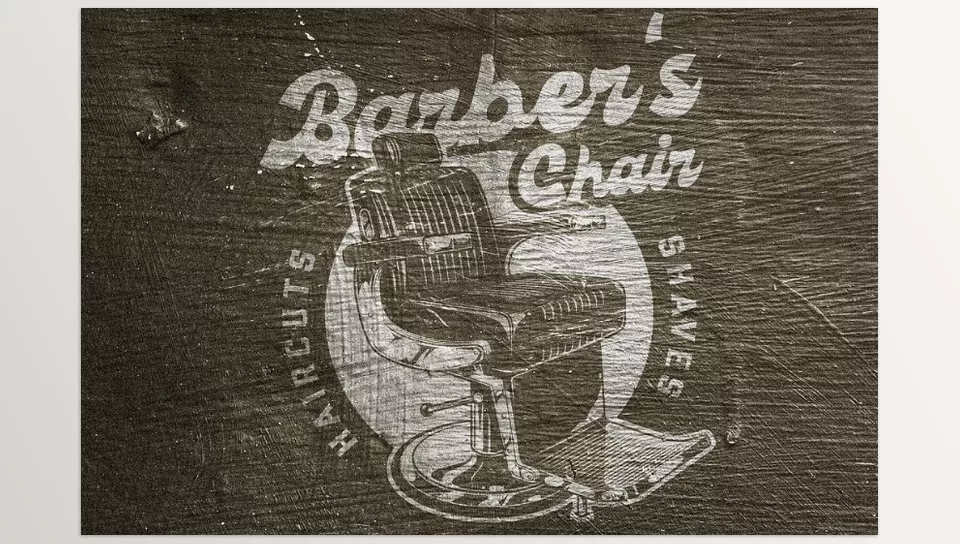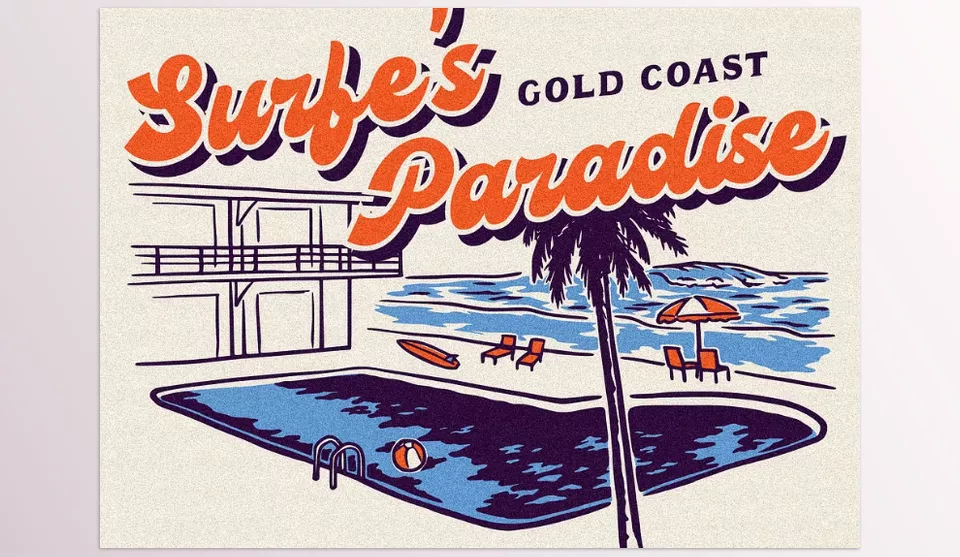
Kapitale Groovy retro script, by Invasi Studio, is a stunning masterpiece of retro-inspired script font with English text with a distinct rounded and sharp edge mix. Perfect for using to get the point across, vibrant posters, logos, and impactful headlines look great with this. Offers versatile alternates and score language support making posters stand out with bold writing.
• Retro-modern fusion: Captivating mixes of rounded forms and sleek sharp diagonals.
• Versatile Design: Ideal for branding projects aimed at cutting-edge nostalgic album covers.
• Stylish Alternates: Offers a fresh look and increased dimension through added glyph options.
• Multilingual Support: Great for international use with support of more than 60 Latin-based languages.
• Bold Typography: Crafted to deliver powerful statement headlines and exceptional visuals.
Kapitale Groovy retro script Overview
Image 1: It is packed with stylish alternates and robust multilingual support, making it ideal for creating attention-grabbing headlines, dynamic posters, sleek logos, and everything else in between.
Kapitale Groovy retro script - It is packed with stylish alternates and robust multilingual support, making it ideal for creating attention-grabbing headlines, dynamic posters, sleek logos, and everything else in between.
Image 2: Brings a perfect balance of vintage flair and cutting-edge design, making every project a showcase of creativity and style.
Kapitale Groovy retro script - brings a perfect balance of vintage flair and cutting-edge design, making every project a showcase of creativity and style.